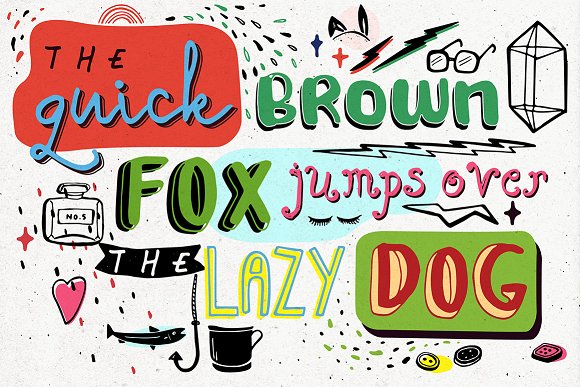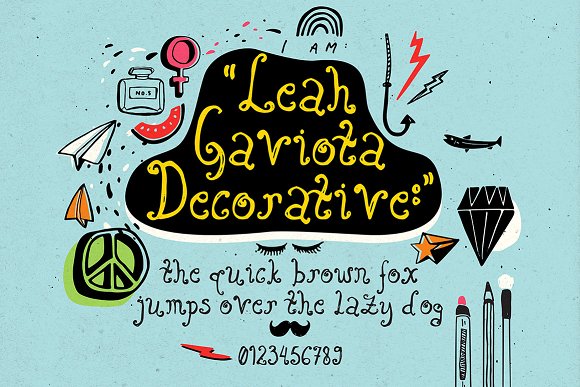
Leah Gaviota Script Font
db-ku.com - Script & Handwritten -- Leah Gaiota is a family that mixes different styles. It includes a script, outline, serif & sans serif. They